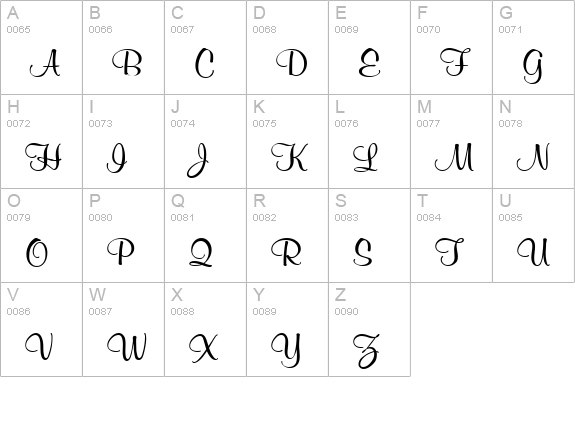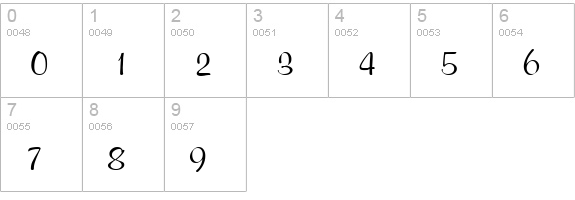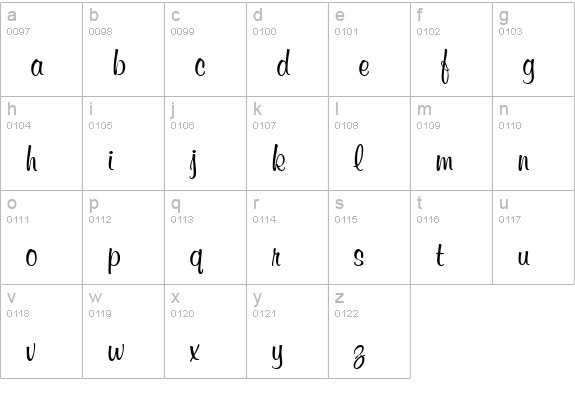
Memento Font Details
Introducing Memento font, a stunning typeface that exudes elegance and sophistication. With its sleek lines and modern aesthetic, Memento is perfect for a wide range of design projects, from branding to editorial design. This versatile font is sure to make your creations stand out and leave a lasting impression. The best part? Memento font is completely free to download at FontsMarket.com! Yes, you read that right - you can easily access this beautiful typeface at no cost. Don't miss out on the opportunity to enhance your designs with the timeless charm of Memento font. Download it now and elevate your creative projects to new heights!